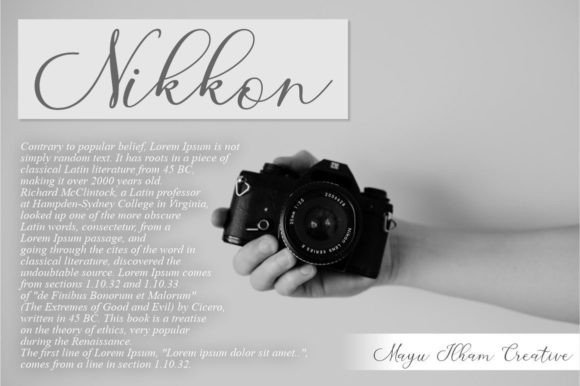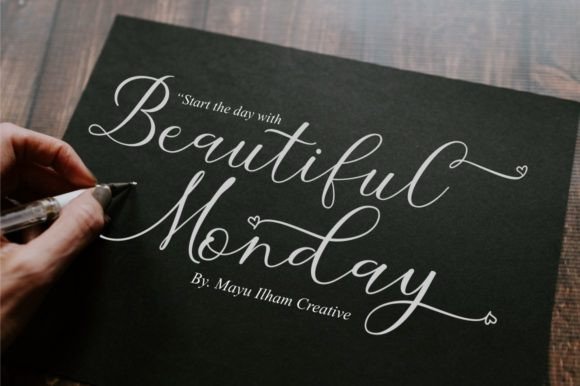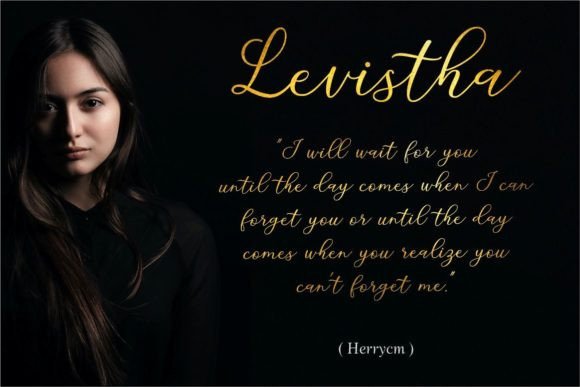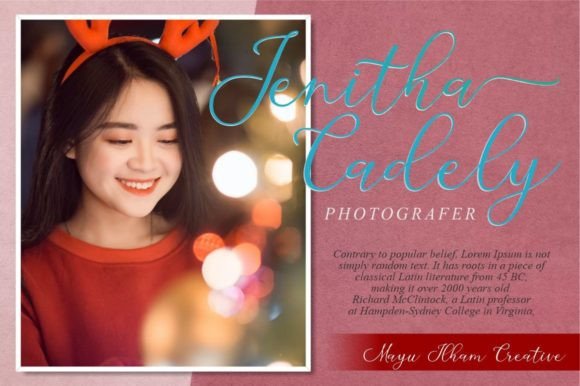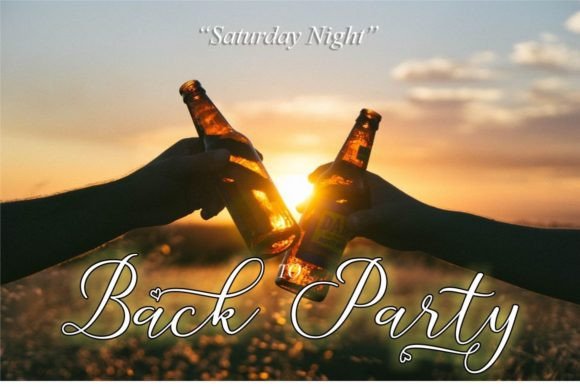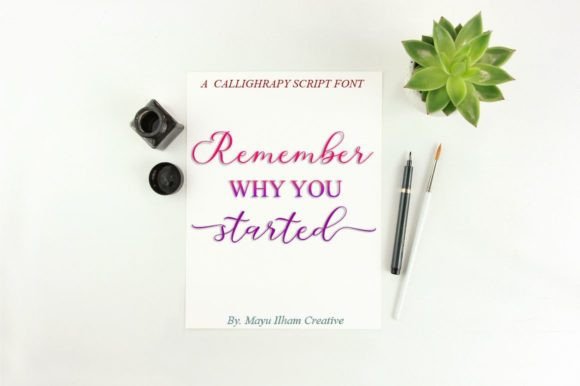
Introducing Edelweis Font: Elevate Your Designs with Luxurious Calligraphy
In the world of typography, few fonts manage to convey the essence of luxury and elegance as effortlessly as Edelweis Font. This beautiful calligraphy script is designed to bring a touch of sophistication to any design project, making it perfect for crafters, designers, and anyone looking to add a bit of glamour to their work. Whether you’re creating titles, logotypes, clothing designs, invitations, branding materials, packaging, advertisements, or magazines, Edelweis Font is the perfect choice.
The Beauty of Edelweis Font
Edelweis Font is a natural handwritten script that exudes a sense of luxury and refinement. Its fluid strokes and elegant letterforms make it an ideal choice for designers who want to add a touch of sophistication to their work. The font’s unique character and charm make it perfect for a wide range of design applications, from high-end branding and advertising to beautiful invitations and packaging.
Key Features of Edelweis Font
So, what makes Edelweis Font so special? Here are just a few of its key features:
- Luxurious Feel: Edelweis Font has a luxurious feel that’s perfect for high-end designs. Its elegant letterforms and fluid strokes make it ideal for creating sophisticated and refined designs.
- Versatile: Edelweis Font is incredibly versatile, making it perfect for a wide range of design applications. Whether you’re creating titles, logotypes, clothing designs, or packaging, this font is sure to impress.
Design Applications for Edelweis Font
So, what can you use Edelweis Font for? The possibilities are endless! Here are just a few ideas to get you started:
- Titles and Headings: Edelweis Font is perfect for creating beautiful titles and headings. Its elegant letterforms and fluid strokes make it ideal for adding a touch of sophistication to any design.
- Logotypes: Edelweis Font is a great choice for logotypes, thanks to its unique character and charm. It’s perfect for creating custom logos that stand out from the crowd.
- Clothing Designs: Edelweis Font is perfect for clothing designs, from t-shirts to dresses. Its luxurious feel and elegant letterforms make it ideal for creating high-end fashion designs.
- Invitations: Edelweis Font is a beautiful choice for invitations, from wedding invitations to baby shower invitations. Its elegant letterforms and fluid strokes make it perfect for creating sophisticated and refined designs.
- Branding and Packaging: Edelweis Font is perfect for branding and packaging designs. Its luxurious feel and unique character make it ideal for creating high-end designs that stand out from the crowd.
- Advertisements and Magazines: Edelweis Font is a great choice for advertisements and magazines. Its elegant letterforms and fluid strokes make it perfect for creating sophisticated and refined designs that grab attention.
Why Choose Edelweis Font?
So, why choose Edelweis Font for your design projects? Here are just a few reasons:
- Unique and Elegant: Edelweis Font has a unique and elegant character that’s perfect for adding a touch of sophistication to any design.
- Versatile: Edelweis Font is incredibly versatile, making it perfect for a wide range of design applications.
- Easy to Use: Edelweis Font is easy to use, even for those who are new to design. Its simple and intuitive encoding makes it easy to access all of the glyphs and swashes.
- Luxurious Feel: Edelweis Font has a luxurious feel that’s perfect for high-end designs. Its elegant letterforms and fluid strokes make it ideal for creating sophisticated and refined designs.
In conclusion, Edelweis Font is a beautiful calligraphy script that’s perfect for designers and crafters who want to add a touch of luxury to their work. Its elegant letterforms, fluid strokes, and luxurious feel make it ideal for a wide range of design applications, from titles and logotypes to clothing designs and packaging. With its PUA encoding and easy-to-use design, Edelweis Font is the perfect choice for anyone looking to elevate their designs and create something truly special.